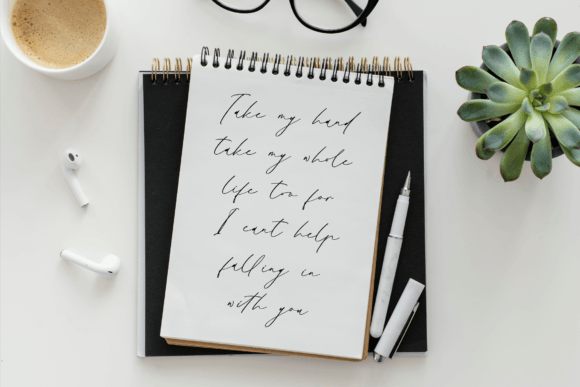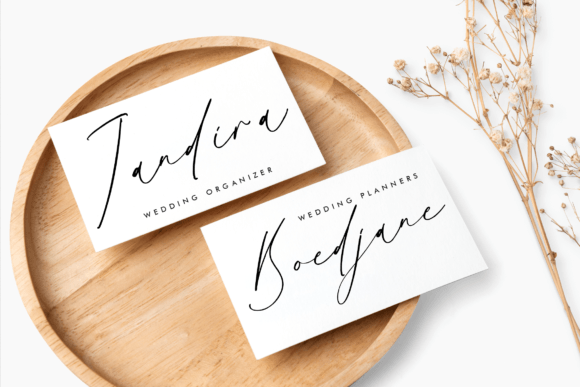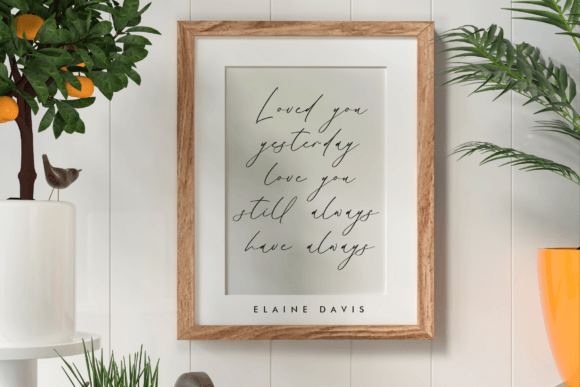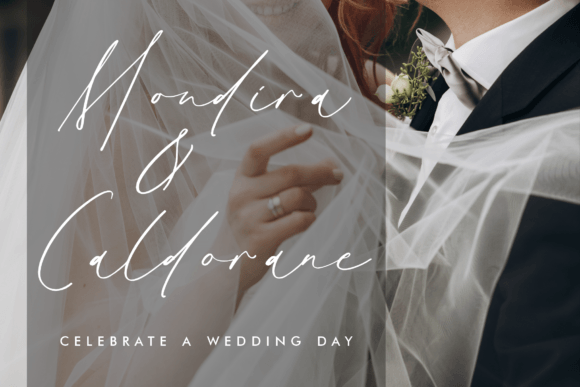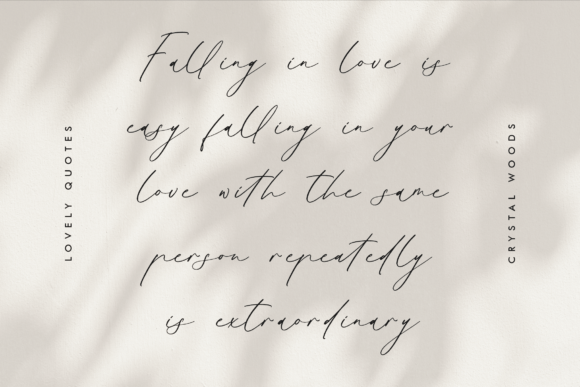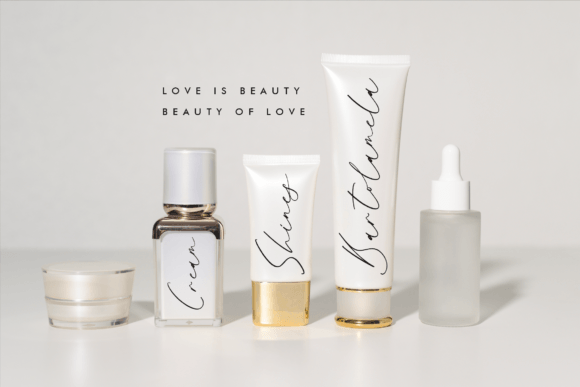
Gatenfield Mondilla Font: Elevate Your Design with Luxury and Elegance
In the world of typography, a font can make or break a design. For those seeking a luxurious and modern signature font, look no further than Gatenfield Mondilla. This stunning typeface is perfect for creating elegant logos, book or movie title designs, fashion brand identities, magazine headers, clothing labels, lettering, quotes, and so much more. In this article, we’ll dive into the world of Gatenfield Mondilla, exploring its features, uses, and benefits for designers and crafters.
What is Gatenfield Mondilla Font?
Gatenfield Mondilla is a sophisticated and modern script font, designed to add a touch of luxury and elegance to any design project. Its flowing lines, intricate details, and refined aesthetic make it an ideal choice for those seeking to create high-end visual identities. Whether you’re a designer, craftsperson, or DIY enthusiast, this versatile font is sure to impress.
Key Features of Gatenfield Mondilla Font
• Luxurious and Modern Design: Gatenfield Mondilla boasts a sleek and contemporary aesthetic, perfect for creating sophisticated designs that exude elegance and refinement.
• Signature Font: This font is designed to be used as a signature font, making it ideal for logos, branding, and other visual identities where a personal touch is desired.
• Highly Versatile: Gatenfield Mondilla can be used for a wide range of design projects, including book and movie titles, fashion branding, magazine headers, clothing labels, lettering, and quotes.
• Elegant and Refined: The font’s flowing lines and intricate details create an air of sophistication and refinement, making it perfect for designs where a high-end feel is desired.
Uses of Gatenfield Mondilla Font
Gatenfield Mondilla is an incredibly versatile font, suitable for a wide range of design projects. Here are some of the many ways you can use this stunning font:
• Elegant Logos: Create a lasting impression with a luxurious logo that showcases your brand’s personality and style.
• Book and Movie Titles: Add a touch of sophistication to your book or movie titles, making them stand out on bookshelves or movie screens.
• Fashion Branding: Elevate your fashion brand with a refined and elegant visual identity that exudes luxury and style.
• Magazine Headers: Create eye-catching magazine headers that showcase your publication’s personality and tone.
• Clothing Labels: Add a touch of elegance to your clothing labels, making your products stand out in a crowded market.
• Lettering and Quotes: Use Gatenfield Mondilla to create beautiful lettering and quotes that add a touch of sophistication to any design project.
Benefits of Using Gatenfield Mondilla Font
So, why choose Gatenfield Mondilla for your design projects? Here are just a few benefits of using this stunning font:
• Instant Luxury Feel: Gatenfield Mondilla instantly adds a touch of luxury and elegance to any design project, making it perfect for high-end branding and visual identities.
• Highly Versatile: This font can be used for a wide range of design projects, making it a valuable addition to any designer’s toolkit.
• Easy to Read: Despite its intricate details, Gatenfield Mondilla is highly legible, making it perfect for use in a variety of design applications.
• Unique and Exclusive: Gatenfield Mondilla is a unique and exclusive font, ensuring that your designs stand out in a crowded market.
Font Name Gatenfield Mondilla Font
Author Storytype Studio
In conclusion, Gatenfield Mondilla is a luxurious and modern signature font that is perfect for designers and crafters seeking to add a touch of elegance and sophistication to their design projects. With its highly versatile design, intricate details, and refined aesthetic, this font is sure to impress. Whether you’re creating elegant logos, book or movie titles, fashion brand identities, or simply looking for a unique and exclusive font for your design projects, Gatenfield Mondilla is an excellent choice.